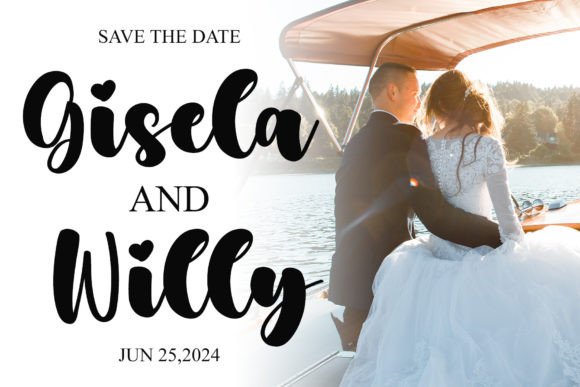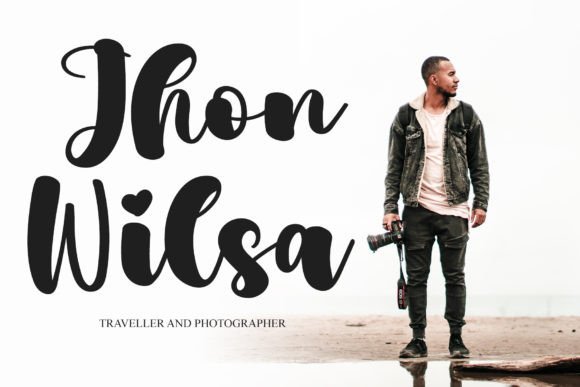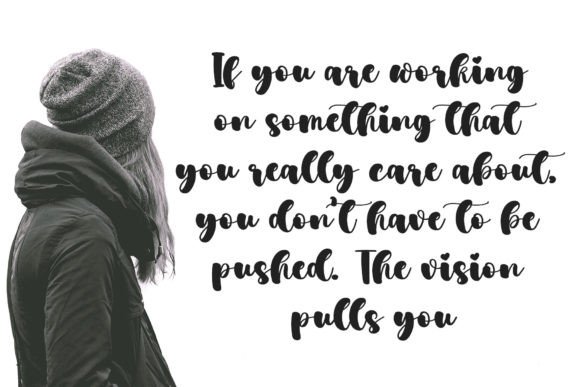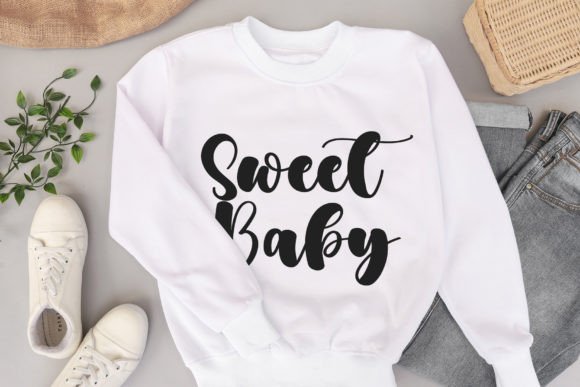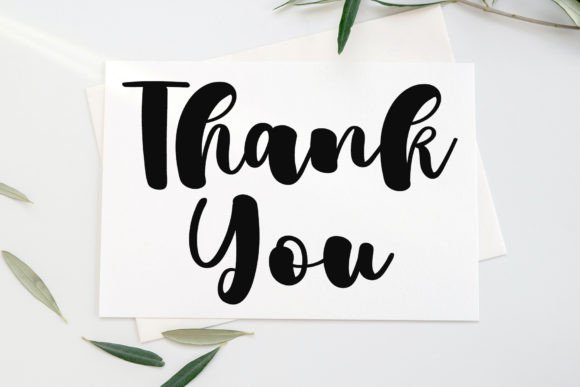
Introducing Bluster Font: Add a Touch of Holiday Magic to Your Designs
Are you looking for a font that can add a dash of festive fun to your Christmas cards, decorations, and other holiday-themed designs? Look no further than Bluster Font! This playful and enchanting typeface is perfect for spreading the joy of the season with its whimsical charm.
What Makes Bluster Font So Special?
Bluster Font is a unique and festive typeface that is adorned with enchanting swashes, making it perfect for adding a touch of holiday magic to your designs. The font is designed to be playful and fun, with a range of glyphs and ligatures that can be easily accessed thanks to its PUA (Private Use Area) encoding.
Bluster Font is a versatile typeface that is perfect for designers and crafters alike. Whether you’re creating Christmas cards, decorations, or other holiday-themed designs, this font is sure to add a touch of festive fun to your projects. The font is easy to use and can be accessed with ease, making it perfect for designers of all skill levels.
Key Features of Bluster Font
• Festive and Playful Design: Bluster Font is designed to be festive and playful, making it perfect for holiday-themed designs.
• Enchanting Swashes: The font features enchanting swashes that add a touch of magic to your designs.
• PUA Encoded: The font is PUA encoded, making it easy to access all of the amazing glyphs and ligatures.
• Whimsical Charm: Bluster Font has a whimsical charm that is sure to add a touch of festive fun to your designs.
Ideas for Using Bluster Font
Here are a few ideas for using Bluster Font in your designs:
• Christmas Cards: Use Bluster Font to create festive and fun Christmas cards that are sure to delight your friends and family.
• Holiday Decorations: Add a touch of holiday magic to your decorations with Bluster Font. Use the font to create festive signs, banners, and other decorations.
• Social Media Graphics: Use Bluster Font to create festive and fun social media graphics that are sure to spread the joy of the season.
• Digital Papers: Create digital papers with Bluster Font that can be used to create festive and fun designs.
Bluster Font is a festive and playful typeface that is perfect for adding a touch of holiday magic to your designs. With its enchanting swashes and whimsical charm, this font is sure to spread the joy of the season. Whether you’re a designer or crafter, Bluster Font is a versatile typeface that is easy to use and can be accessed with ease. So why wait? Download Bluster Font today and start adding a touch of holiday magic to your designs!